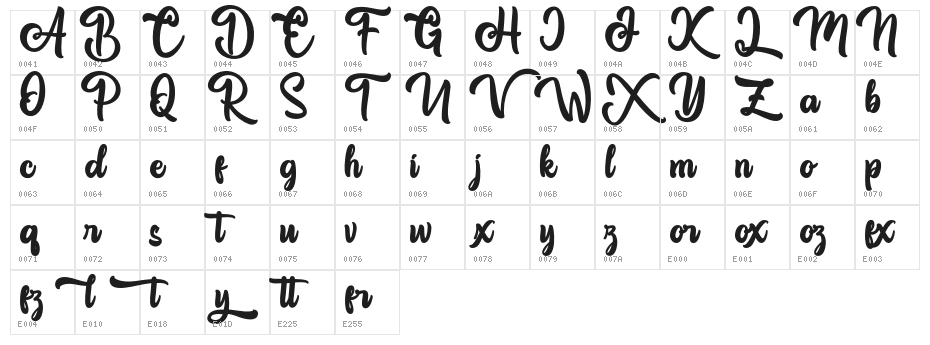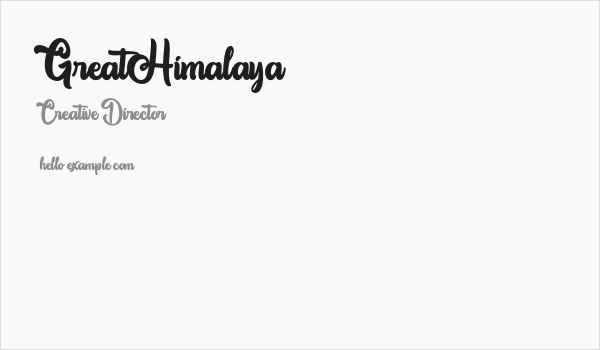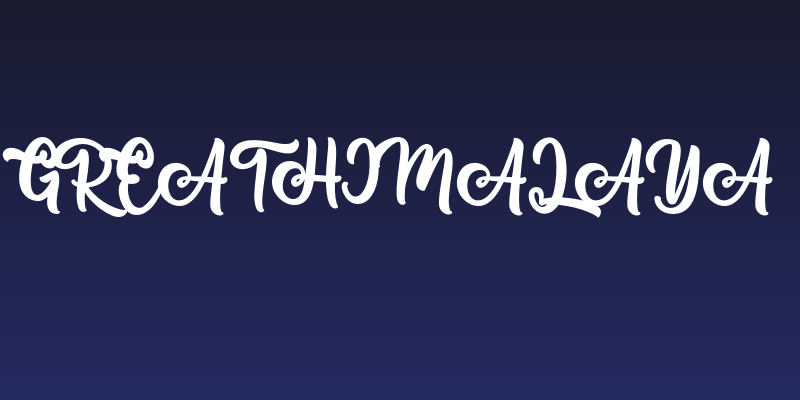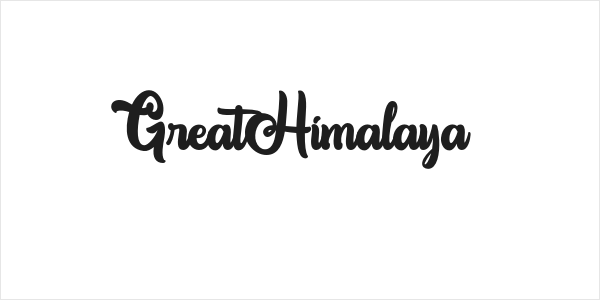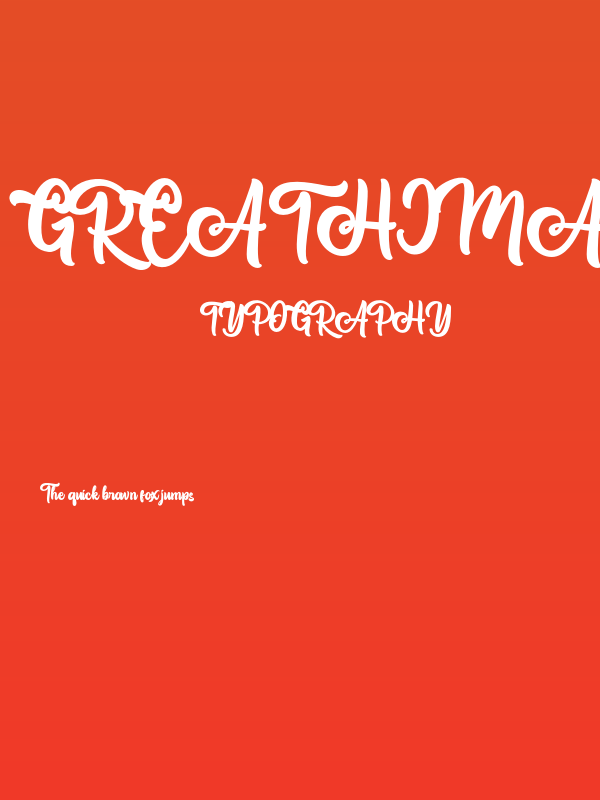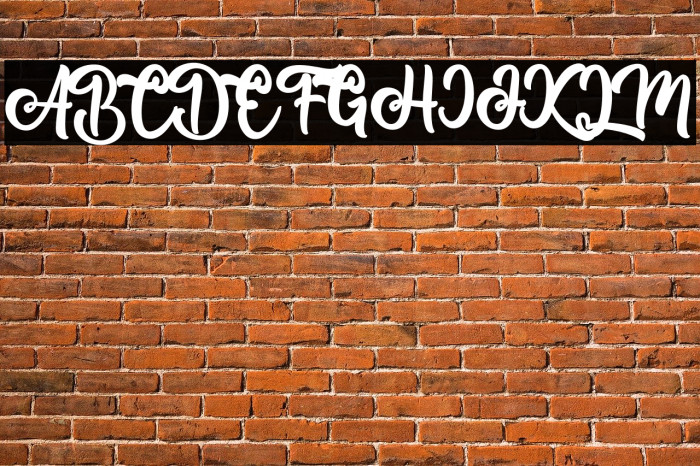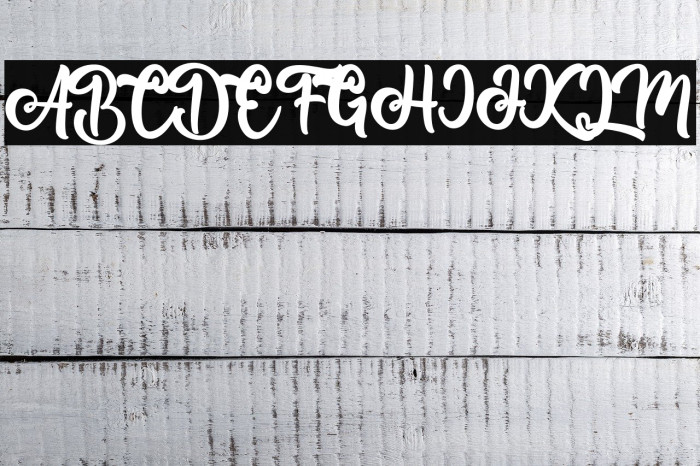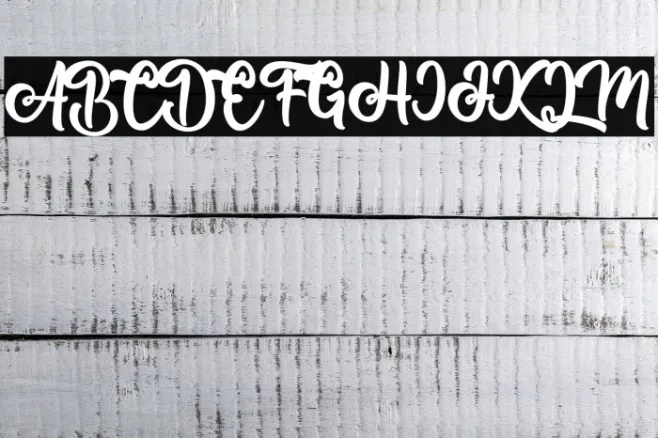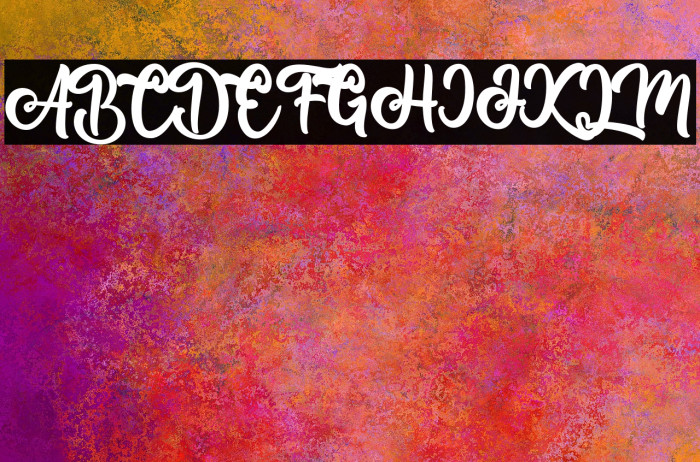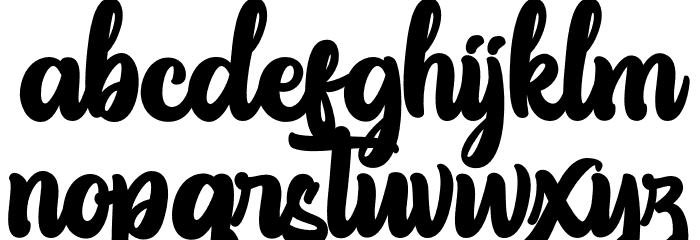
GreatHimalaya Font
GreatHimalaya Description
This font features a bold, flowing script style with a strong presence. The uppercase letters are characterized by their elaborate loops and curves, giving them a decorative and artistic flair. The lowercase letters maintain a consistent thickness, enhancing readability while still retaining a sense of elegance and fluidity. The numbers and special characters are designed to match the overall style, ensuring a cohesive look across all elements. The font's boldness and unique style make it ideal for projects that require a touch of sophistication and creativity.
| Proposed Projects | Ideal for wedding invitations, branding, logos, and artistic posters. |